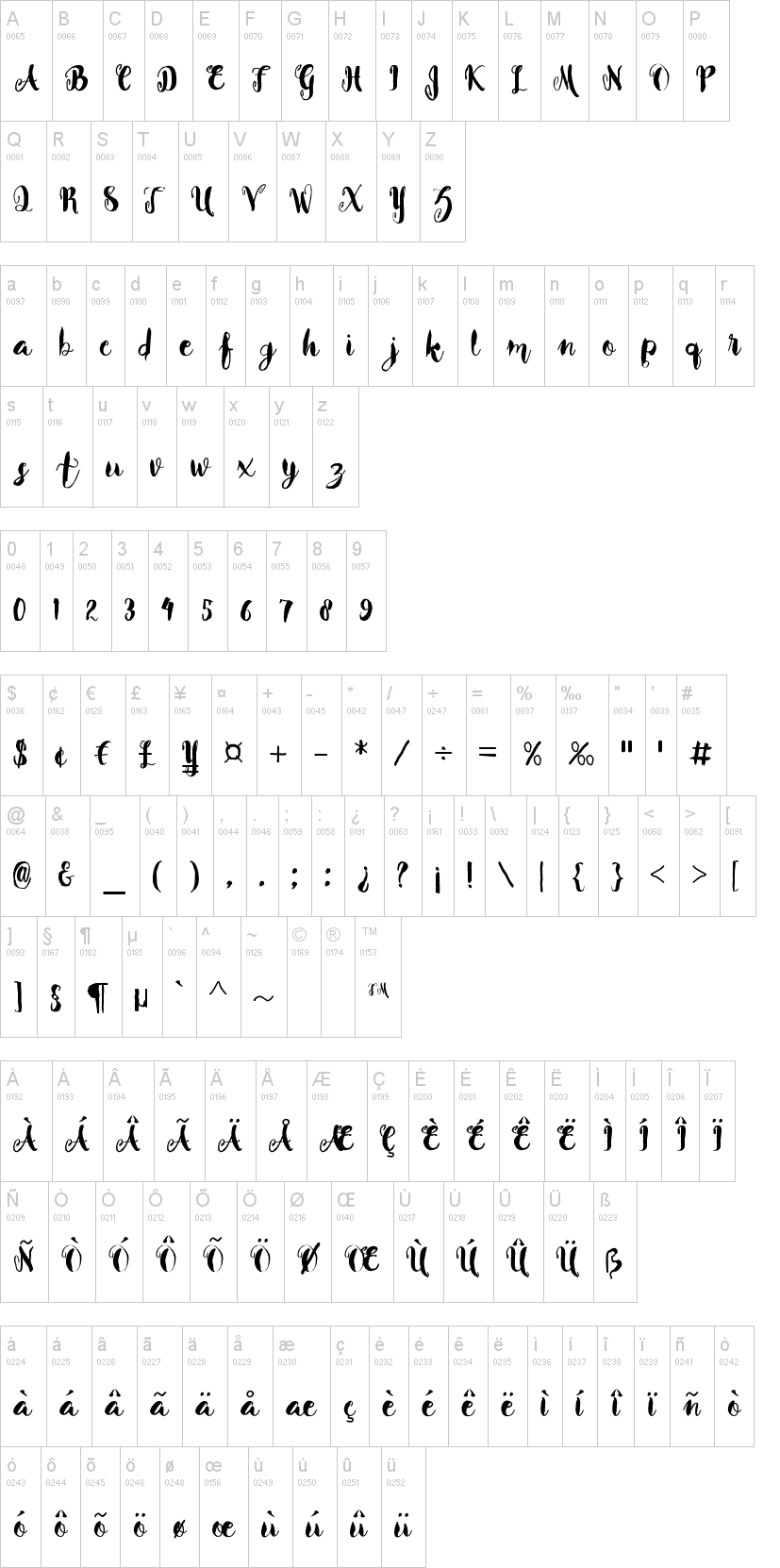
beverly
Experience the Charm of Beverly Font
Beverly Font, crafted by renowned designer John Smith in 2022, is a chic typeface that merges contemporary aesthetics with timeless elegance. Ideal for branding, editorial work, and digital designs, it offers a unique flair that stands out in both print and web environments.
Key Features and Formats of Beverly Font
The Creation and Essence of Beverly Font
Beverly Font draws inspiration from the elegance of urban environments, aiming to encapsulate a modern yet classic feel. John Smith’s meticulous design approach ensures each character is thoughtfully crafted, allowing for optimal legibility and aesthetic appeal. This font is perfect for modern branding and stylish publications.
Ideal Uses for Beverly Font
The versatile nature of Beverly Font makes it suitable for various applications such as branding, logos, social media graphics, and print materials. Whether you are working on a modern website, an eye-catching flyer, or chic apparel, Beverly Font enhances your projects with sophistication and style.